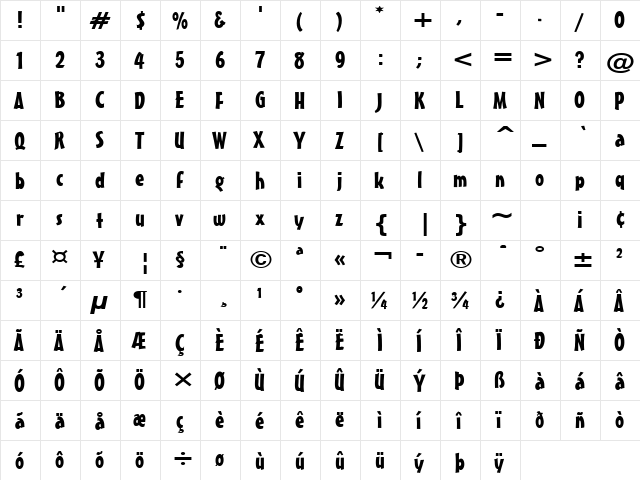
Massey-Extended Normal
Design Context for Massey-Extended Typeface
Massey-Extended is a composed and adaptable typeface that performs quietly and consistently across a wide range of design contexts.